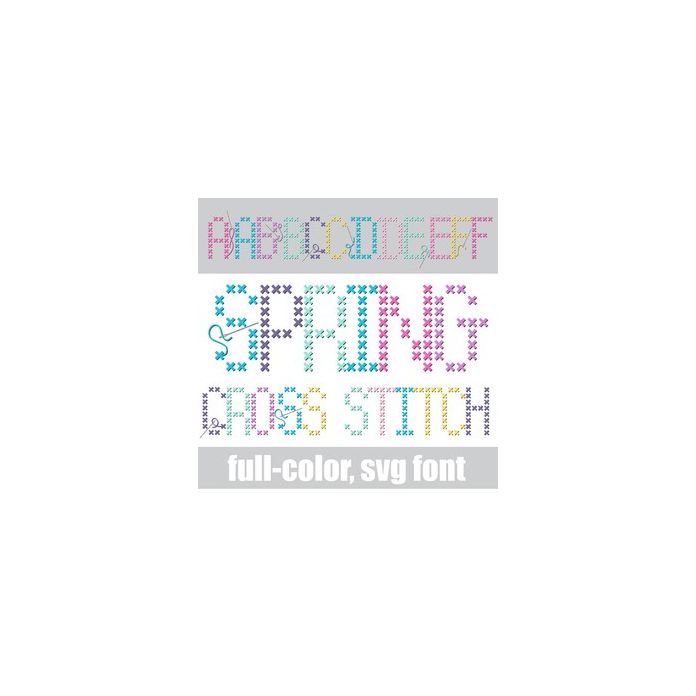
This full-color font features spring color cross-stitched lettering. The uppercase has needles too. There is an alt case w/ additional colors you can access through your system or Silhouette's glyph map.